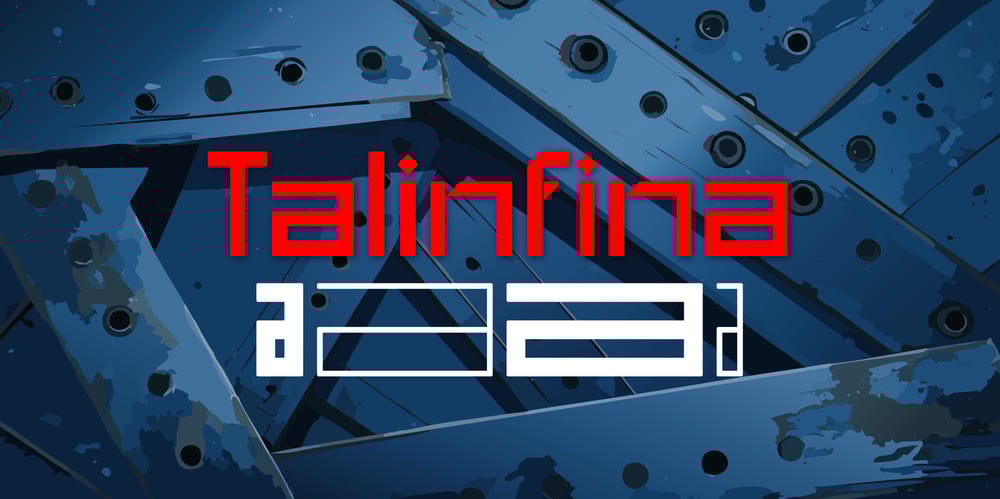
Talinfina
Talinfina font
Talinfina Font Family was designed by Dominik Krotscheck and published by Dominik Krotscheck. Talinfina contains 13 styles and family package options. A geometric and modern font combining sharp angles and round corners for a technical appearance. This font-family features a geometric and modern design with a strong emphasis on straight lines and sharp angles. The characters are uniformly structured, giving it a futuristic and technical appearance. Available in four weights in three widths as well as variable.Ideal for technology branding, modern posters, headlines, logos and imitating digital interfaces.